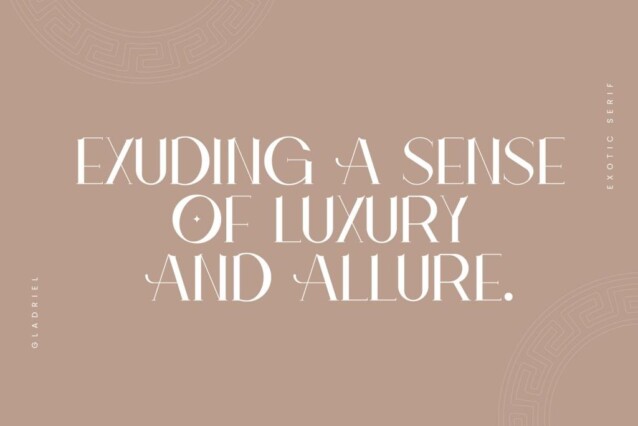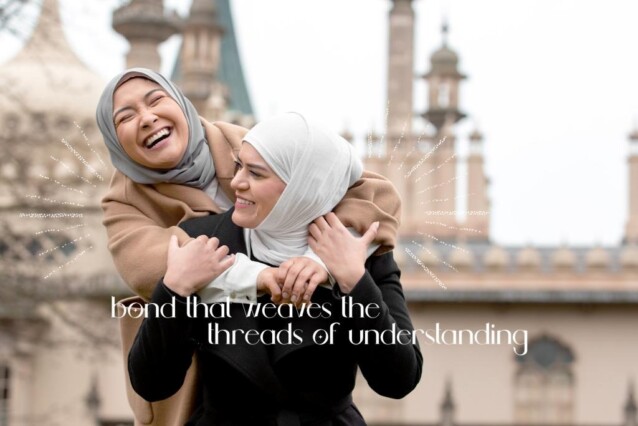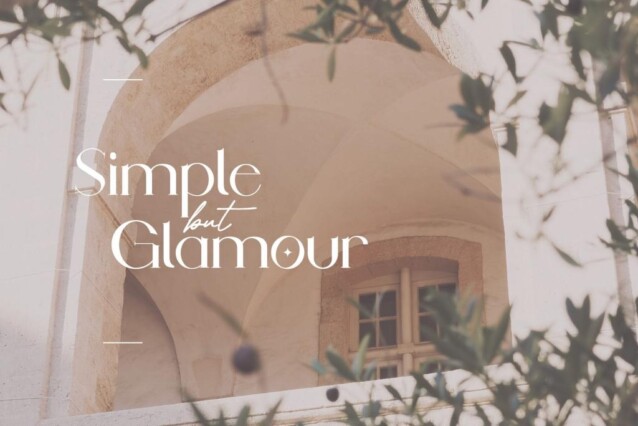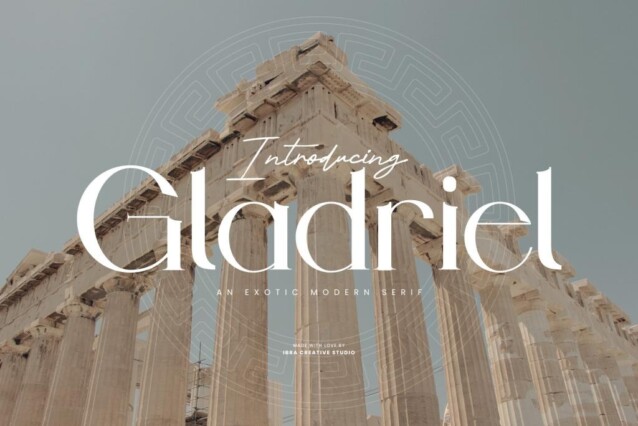
Gladriel Font
Gladriel Font is a novel typeface with graceful curves resulting in an elegant style and luxurious appearance. The serifs, with their intricate and unique design, are reminiscent of an artistic journey through uncharted lands. The letters bear a hint of exoticism, drawing inspiration from diverse cultures, adding a touch of mystique and global appeal. The flow of the characters is graceful, yet each stroke holds an unexpected, contemporary twist, making Gladriel a captivating choice for branding, editorial projects, and creative endeavors that demand a fusion of cultural richness and modern aesthetics. The font embodies an exotic charm that can transport any design to a realm of elegance and intrigue.